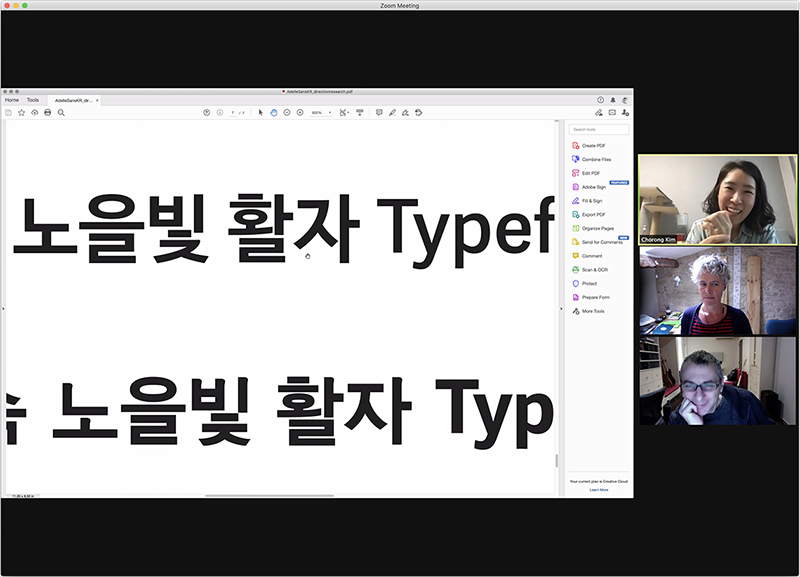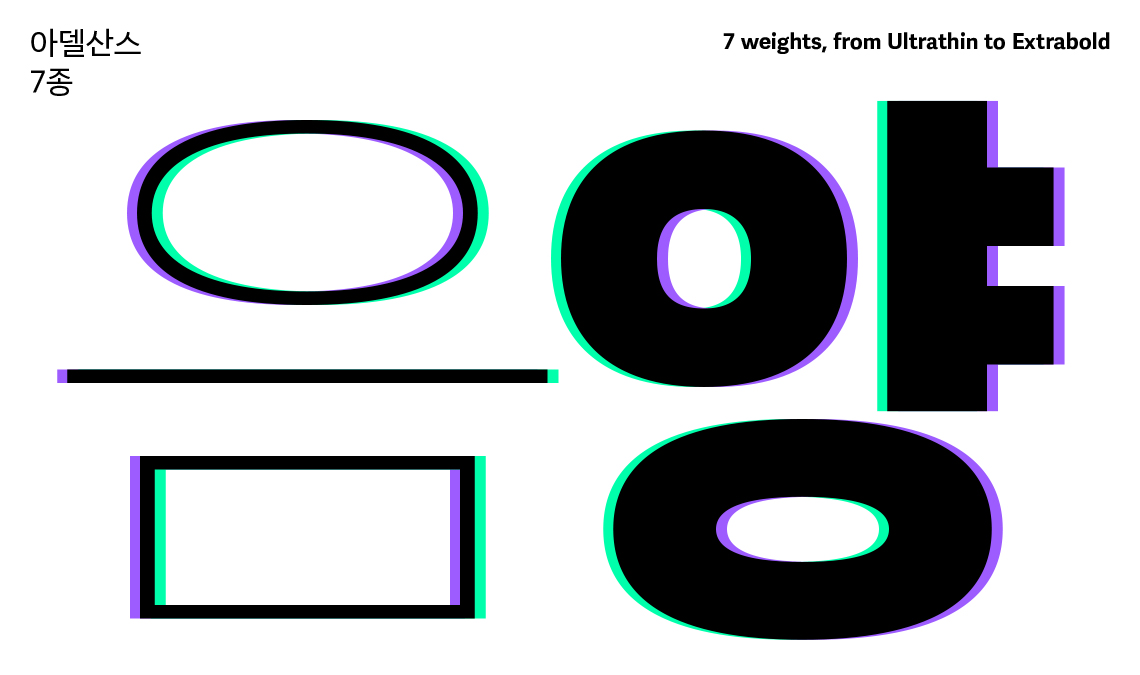
Adelle Sans Korean coming soon
In recent years, we at TypeTogether have increased our coverage of scripts in a purposeful way, going from a handful of scripts to 12 in a short amount of time. Along with the Sandoll team, we are now preparing the 13th script for our Adelle Sans family: the Korean Hangul script designed by Chorong Kim and Changsup Im. It’s still in the works, so a sneak peek will have to do for the moment.
From the beginning of TypeTogether, we have been committed to collaboration and trusting the expertise of our teammates. This is especially true when it comes to multiscript type design where the particularities of a script need to be respected. This sensitivity is best provided by seasoned type designers native to each script who are comfortable exploring typographic boundaries. Therefore, we like to collaborate with different partners and experts in each script we create.
Our upcoming Adelle Sans Korean is no exception. For this project we have joined forces with renowned Korean type foundry Sandoll. Our friendship and collaborations go back quite a few years when they asked us to design their new Latin branding typeface and logotype.
Adelle Sans already provides support for 12 scripts  plus pan-European, pan-African, and Vietnamese Latin. Thanks to its sans serif nature, friendly personality, and exceptional readability on screens, it is a straightforward candidate for Hangul.
Enjoy this small preview of the upcoming Hangul extension to the family. It offers a broad range of styles from Ultrathin to Extrabold, making it a broad communications tool for implementation in corporate identity programs, digital user interfaces, and other wide-ranging uses.